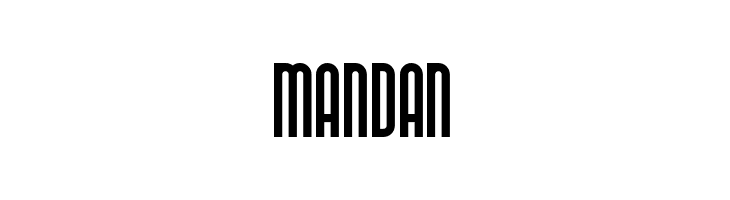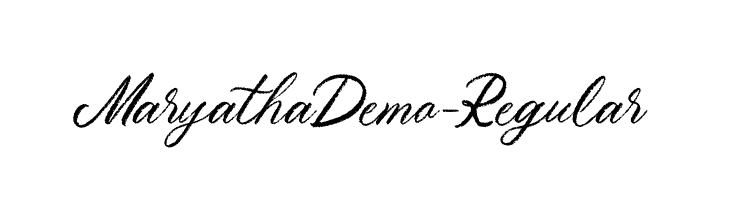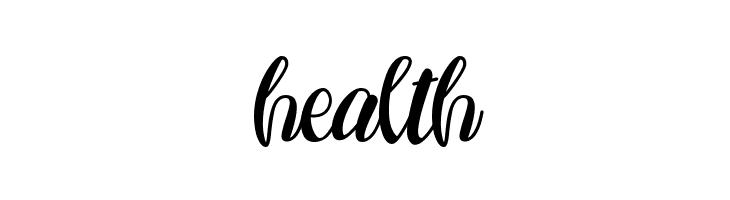
A whimsical, hand-drawn font with tall, narrow letters and playful curves.
An elegant serif font with high contrast and classic yet modern appeal.
A modern serif font with high contrast and elegant, refined lines.
A bold, playful font with a hand-drawn, energetic style.
A modern, cursive handwritten font with fluid and elegant strokes.
A bold serif font with high contrast and elegant styling.
A playful, handwritten font with a casual and authentic feel.
A playful, rounded font with smooth curves and a friendly appearance.
A bold, geometric font with uniform stroke widths and a modern edge.
A bold, geometric font with a strong, modern presence.